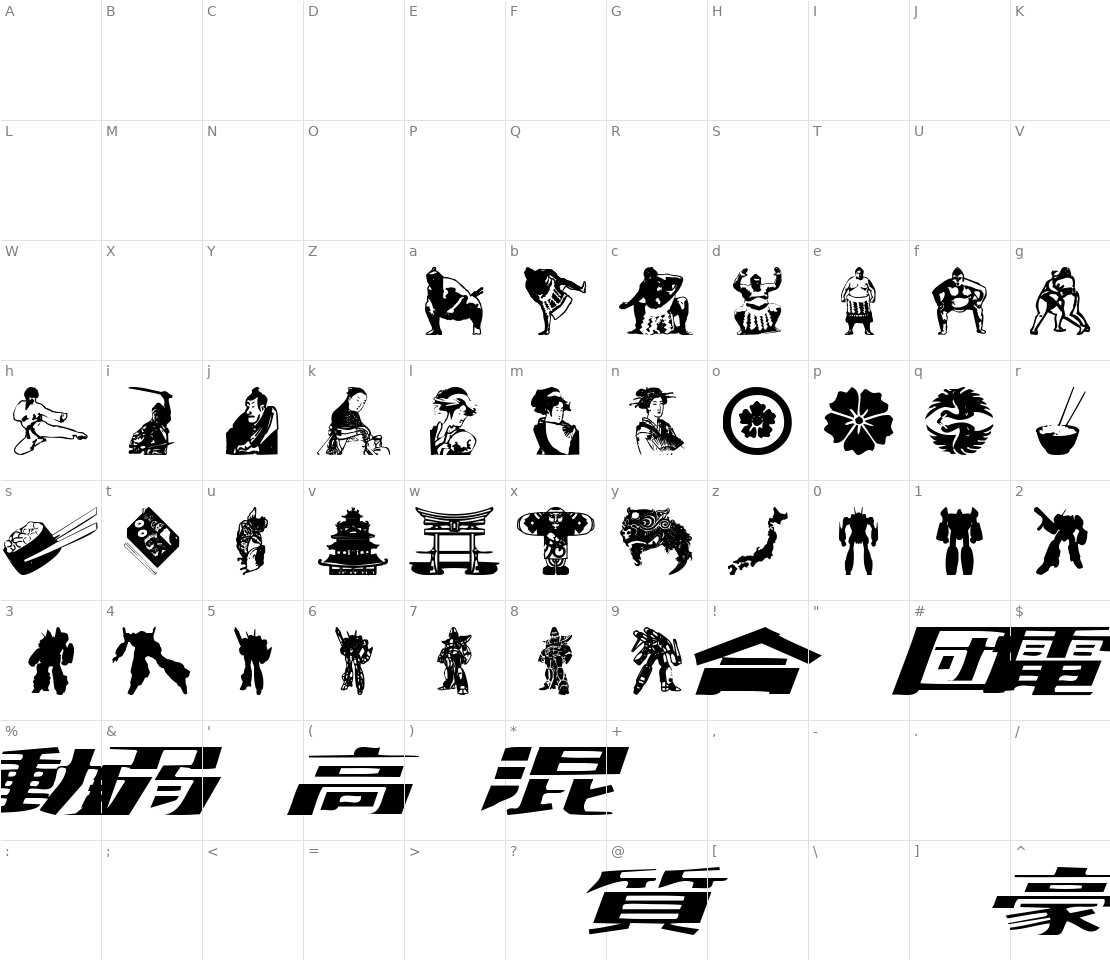
Japanapush
by Push
Japanapush is a themed dingbat font from Push featuring decorative symbols drawn from Japanese culture, including samurai, geisha, and martial arts figures. The illustrations have a bold, graphic quality that works for themed projects, event materials, or cultural design work where you need quick iconographic elements rather than traditional letterforms.